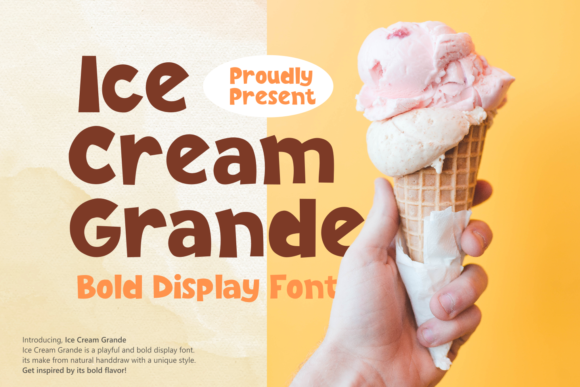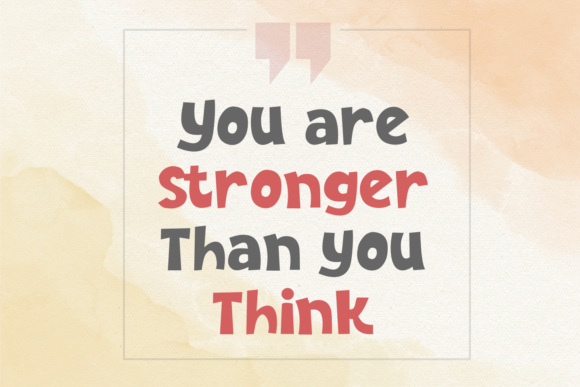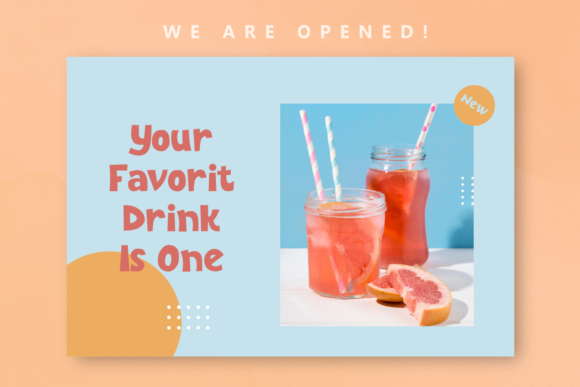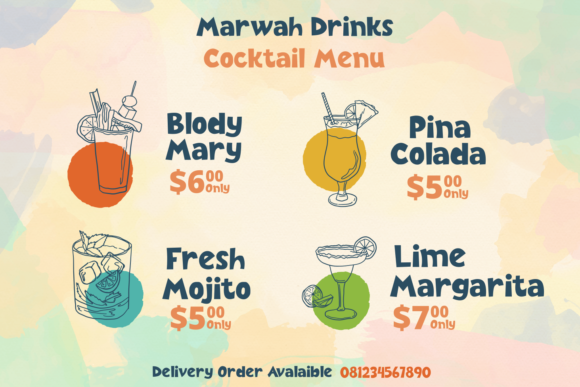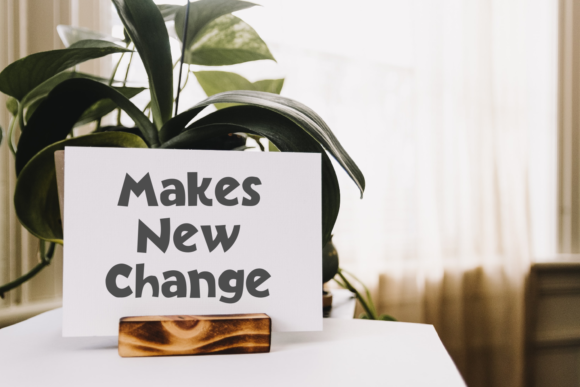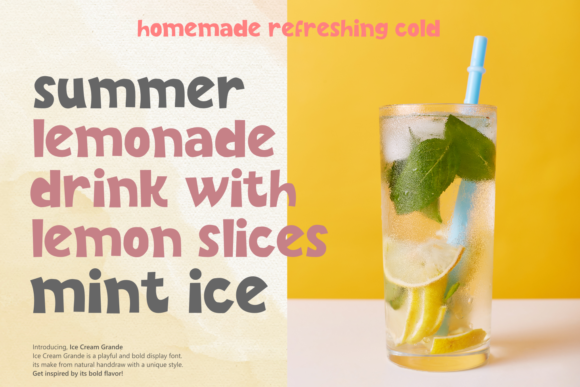
Introduction to Ice Cream Grande Font
Ice Cream Grande is a bold and trendy looking display font.
No matter the topic, this font will be an incredibly asset to your fontsโ library, as it has the potential to elevate any creation .
Ice Cream Grande Font offers exceptional quality and versatility, making it a valuable addition to your design toolkit. Whether you’re creating for personal projects or commercial use, Ice Cream Grande Font delivers professional results.